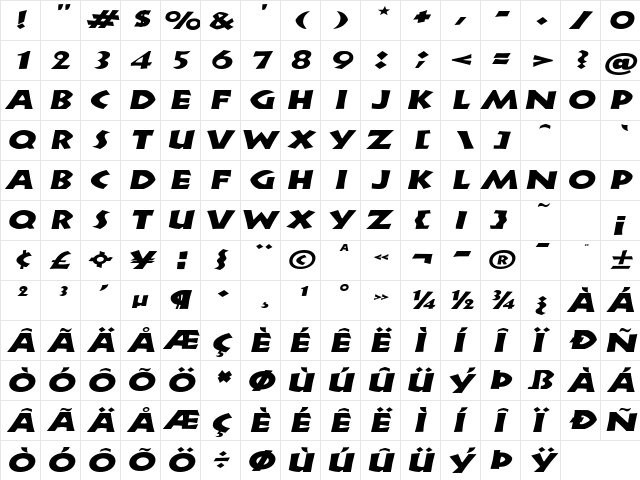
ZorbaExtended Italic
Design Context for ZorbaExtended Typeface
ZorbaExtended is a composed and adaptable typeface that performs quietly and consistently across a wide range of design contexts. The slanted form adds forward momentum and visual energy.
Pro Tip: Try ZorbaExtended for annotation and caption copy alongside an upright companion — the contrast in angle creates a dynamic but ordered typographic system.